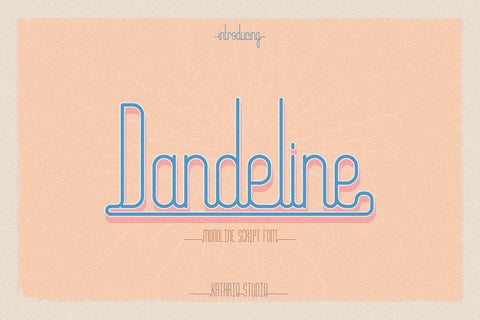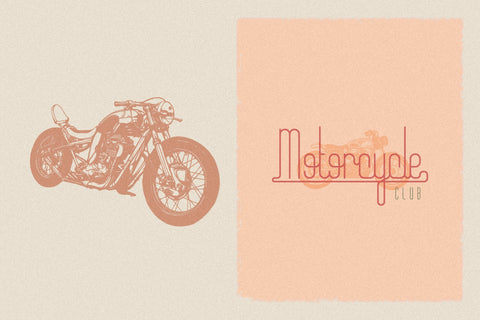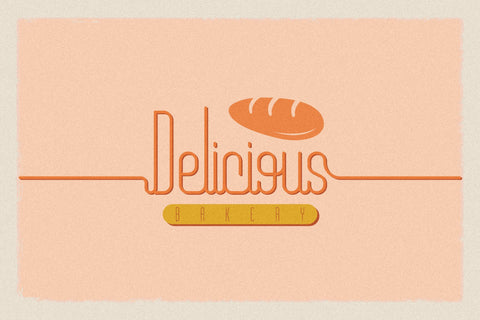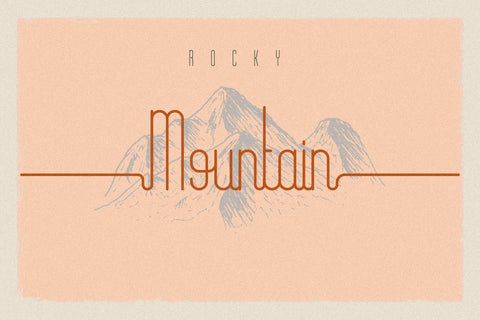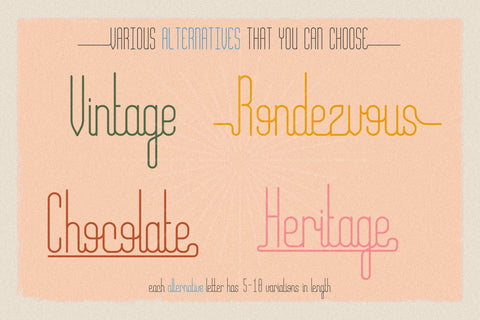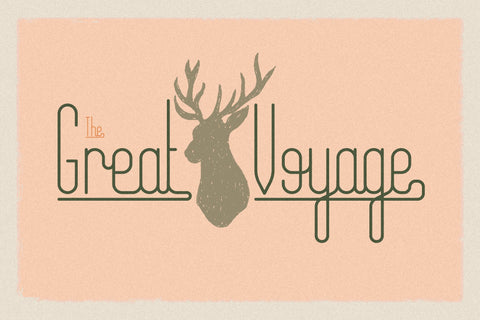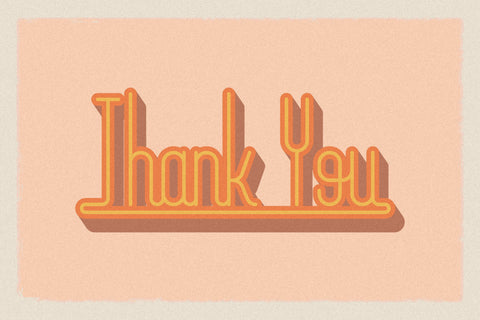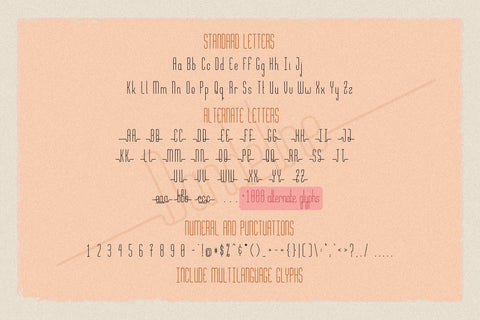
Dandeline | Sweet Fun Handwritten Font
Dandeline is a sweet and fun handwritten font with a cool twist. It’s the perfect font for adding a vintage vibe to any design project!